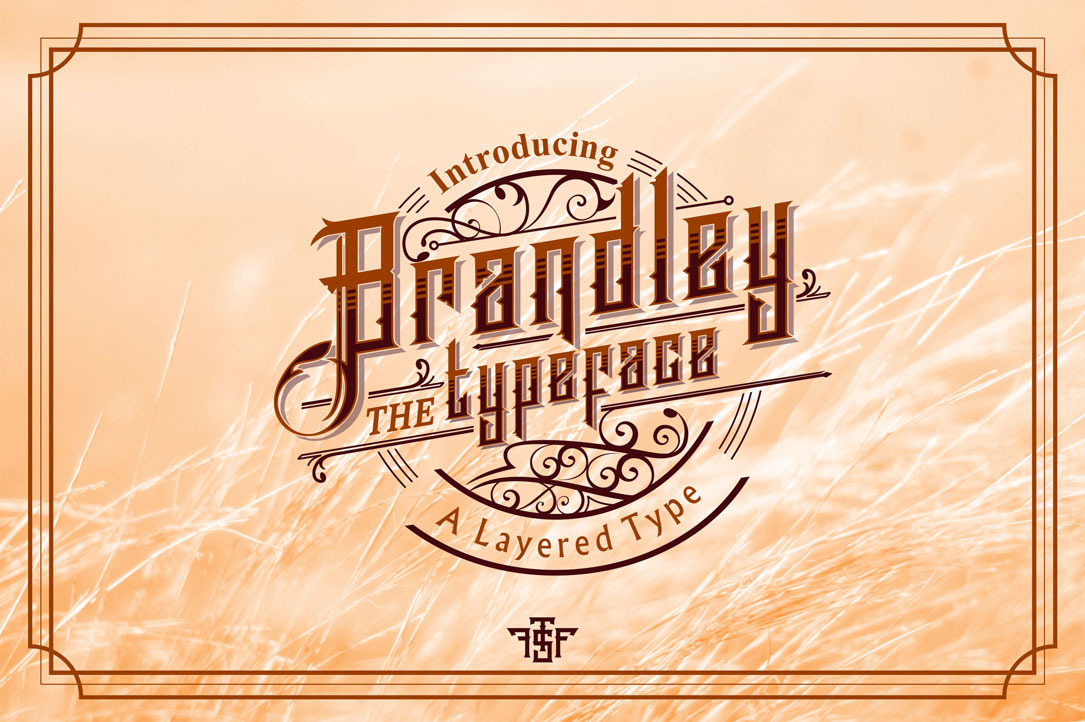
Brandley Typeface
Introducing Brandley Type
Brandley come with layered type family with unique 4 Layer to combine
- Brandley,
- Brandley insert one
- Brandley insert two,
- Brandley shadow
make a different style with combine a layer. Inspired by Ephemera design and Poster, 50’s, 60’s, 70’s it’s have a detail shapes and good looking for Old and Vintage design Logotype,Letterhead, Titles, Poster and more.